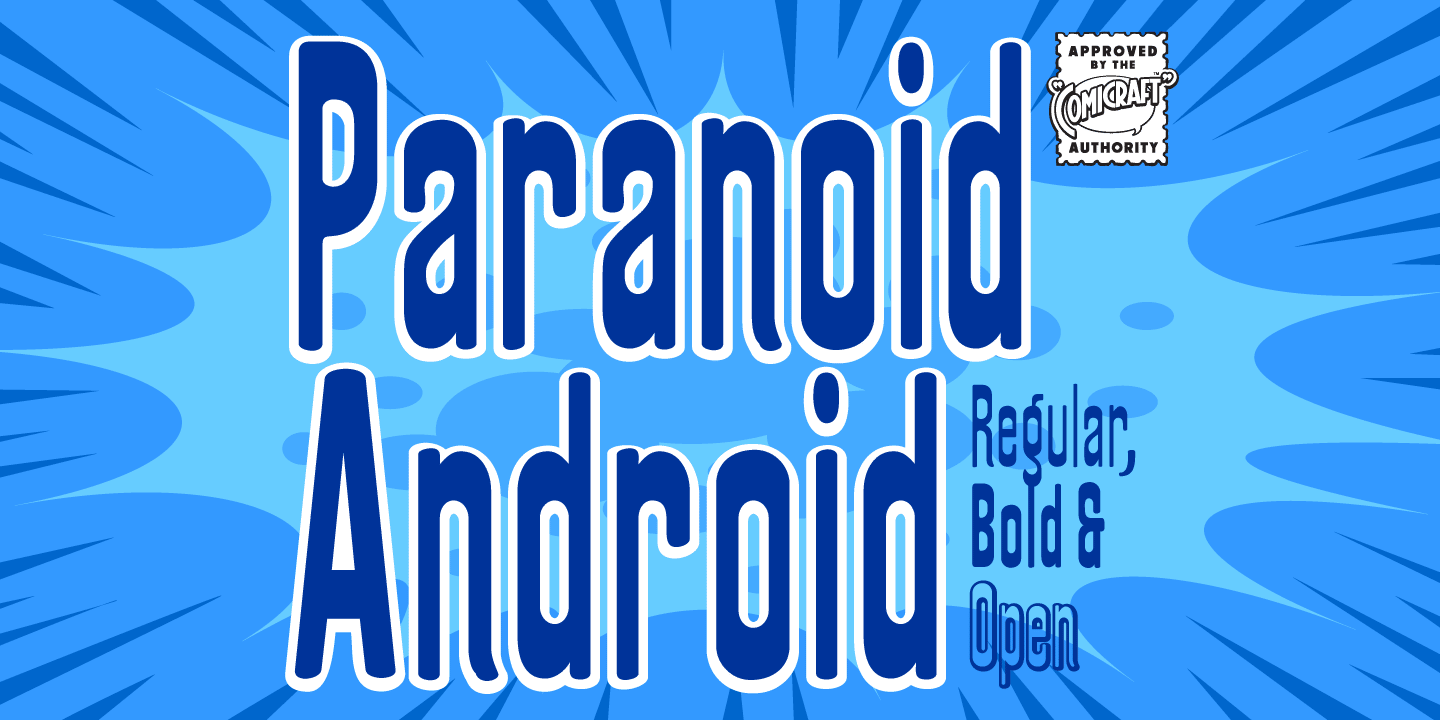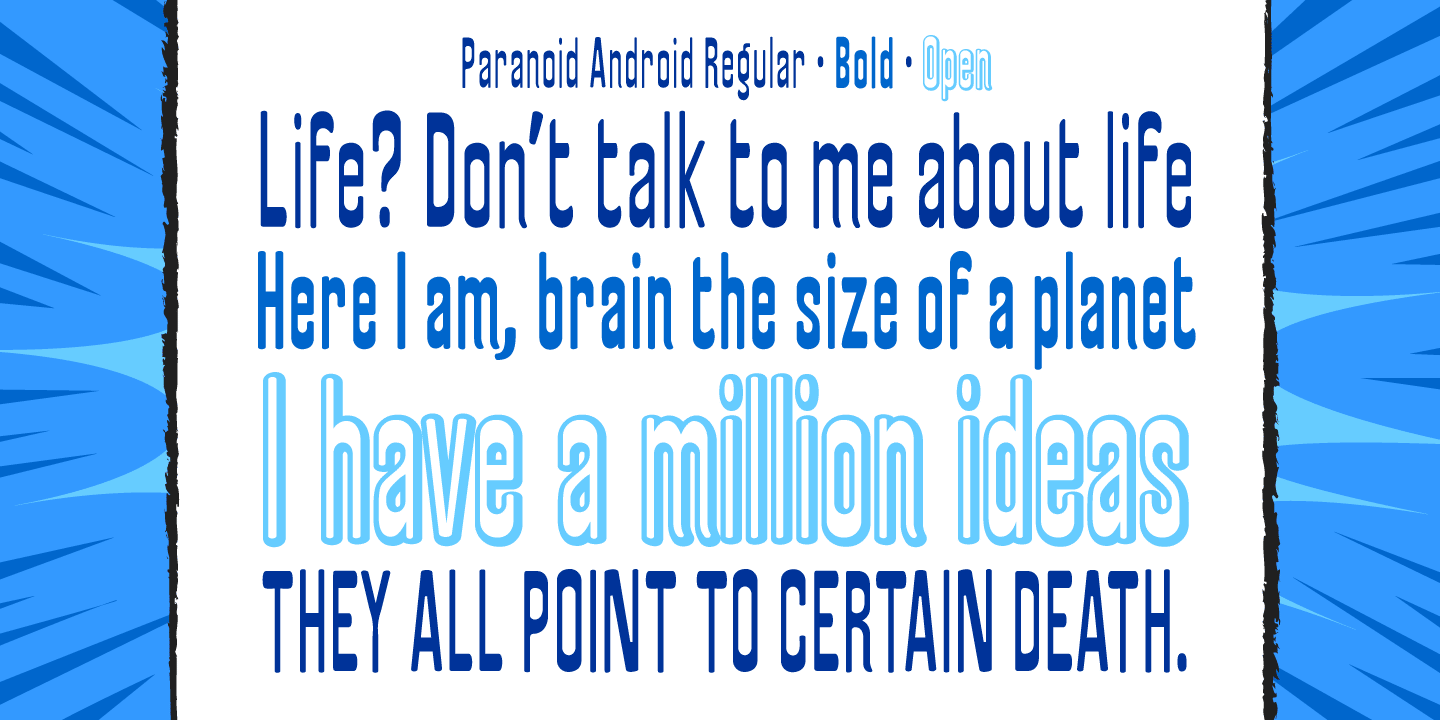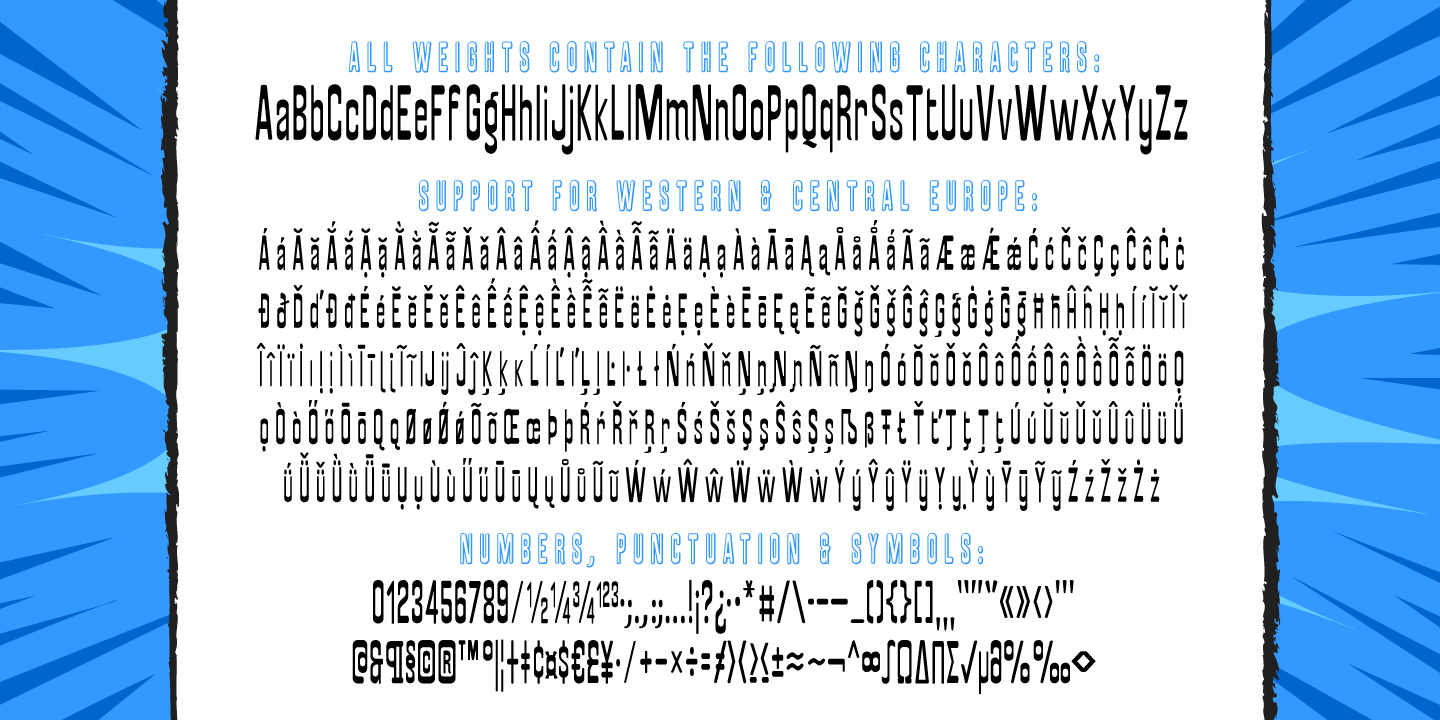
Paranoid Android
Font Family by Comicraft Fonts
*The moving parts on the left side of this font are in a solid state. It may sit in a corner and rust, or just fall apart where it's standing.